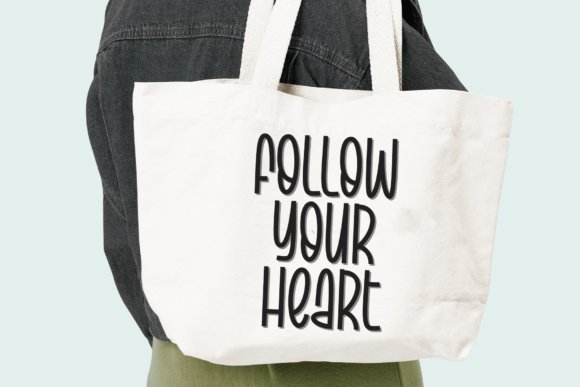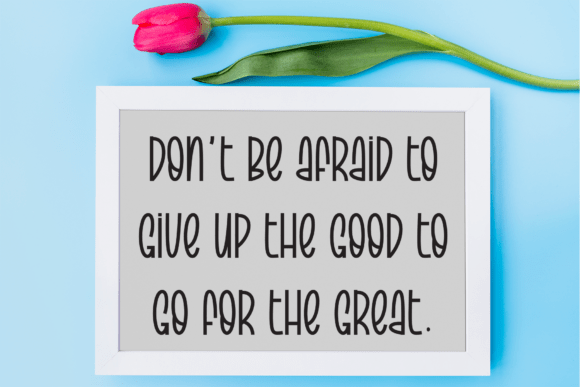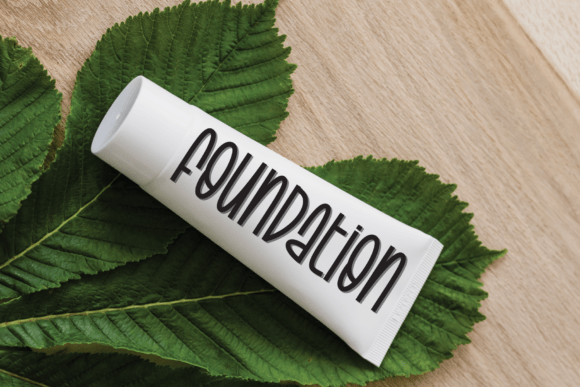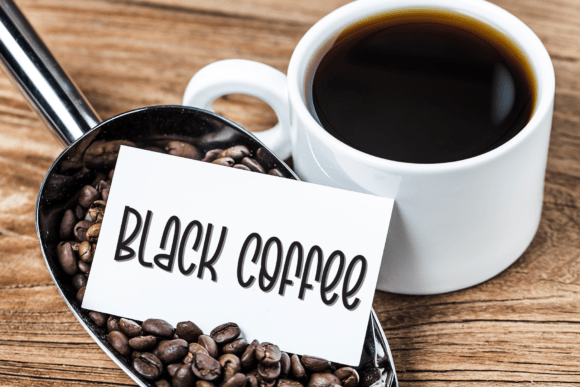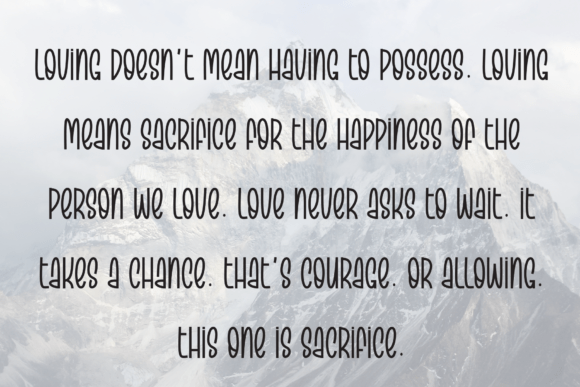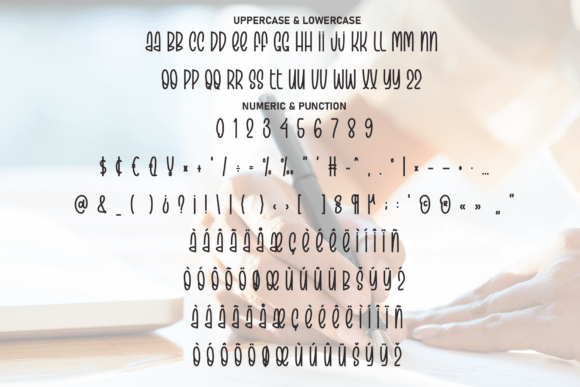
Introducing Happy Written Font: The Perfect Blend of Warmth and Clarity
In the world of typography, fonts play a crucial role in conveying the tone and personality of a brand or design. If you’re looking for a font that exudes warmth, clarity, and approachability, look no further than Happy Written Font. This casual and neat display font is designed to bring a touch of friendliness to your projects, making it perfect for branding, headlines, and everyday designs.
The Characteristics of Happy Written Font
Happy Written Font boasts a clean structure and approachable style, making it an excellent choice for designers and crafters who want to add a personal touch to their work. The font’s balanced letterforms offer exceptional readability and charm, ensuring that every message feels genuine and inviting. Whether you’re working on a logo, brochure, or social media post, Happy Written Font is sure to make your design stand out.
Key Features of Happy Written Font
- Clean Structure: Happy Written Font features a clean and organized structure that makes it easy to read and understand.
- Approachable Style: The font’s approachable style makes it perfect for designs that require a friendly and inviting tone.
- Balanced Letterforms: The balanced letterforms in Happy Written Font ensure that every message feels harmonious and visually appealing.
- Exceptional Readability: The font’s clear and concise design makes it easy to read, even at smaller sizes.
Uses of Happy Written Font
Happy Written Font is a versatile font that can be used in a variety of design projects, including:
- Branding: Use Happy Written Font to create a logo or brand identity that exudes warmth and approachability.
- Headlines: The font’s clean structure and balanced letterforms make it perfect for headlines and titles.
- Everyday Designs: Happy Written Font is suitable for everyday designs, such as social media posts, flyers, and brochures.
Why Choose Happy Written Font?
With so many fonts available, why choose Happy Written Font? Here are just a few reasons:
- Unique Personality: Happy Written Font has a unique personality that sets it apart from other fonts.
- Easy to Read: The font’s clear design makes it easy to read, even for readers with visual impairments.
- Versatile: Happy Written Font can be used in a variety of design projects, from branding to everyday designs.
Tips for Using Happy Written Font
To get the most out of Happy Written Font, here are a few tips:
- Use it for Headlines: Happy Written Font is perfect for headlines and titles, where its clean structure and balanced letterforms can shine.
- Pair it with Other Fonts: Experiment with pairing Happy Written Font with other fonts to create a unique and visually appealing design.
- Adjust the Size: Don’t be afraid to adjust the size of Happy Written Font to suit your design needs.
In conclusion, Happy Written Font is a fantastic choice for designers and crafters who want to add a touch of warmth and clarity to their projects. With its clean structure, approachable style, and balanced letterforms, this font is perfect for branding, headlines, and everyday designs. Whether you’re working on a logo, brochure, or social media post, Happy Written Font is sure to make your design stand out.